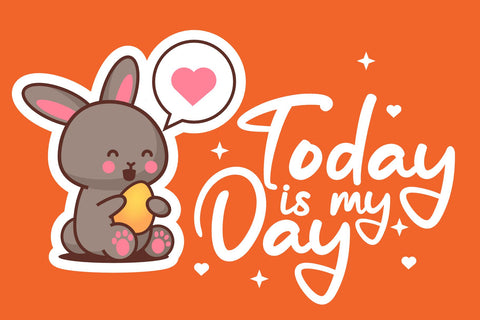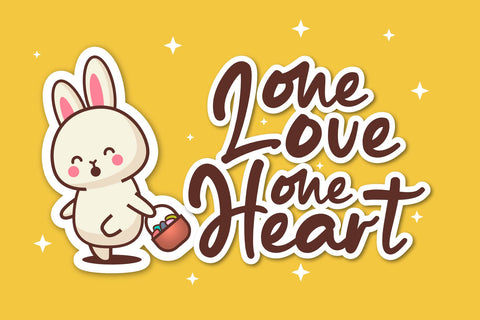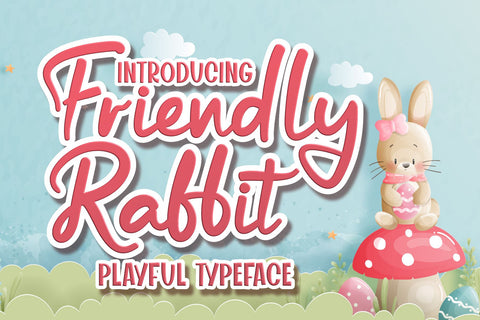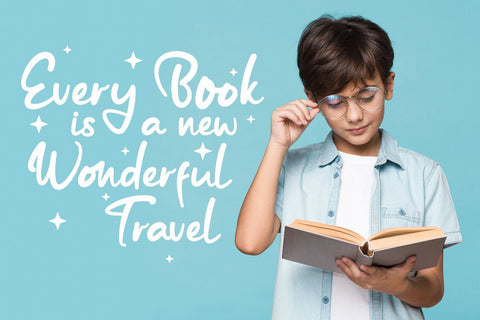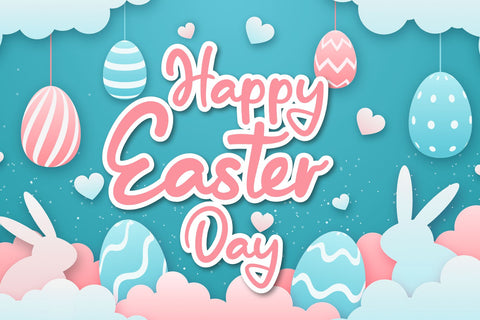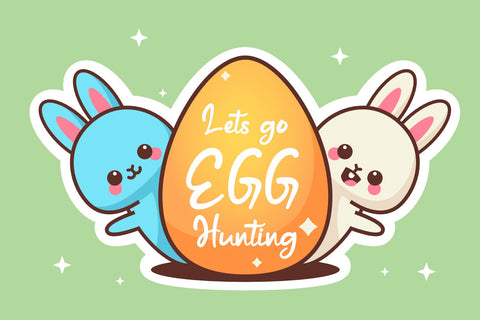
Friendly Rabbit - Playful Typeface
Friendly Rabbit is a stylish brush font with natural movement that looks casual, stylish, and colorful
Friendly Rabbit is perfect for kids designs, easter, baby branding, diapers, watermarks, social media posts, advertisements, logos & branding, product design, labels, stationery, designs, product packaging, special events, or anything else. requires a handwritten feel.